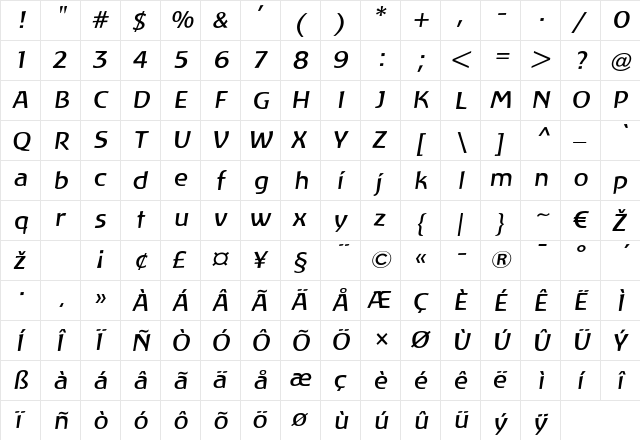
LTAtlantis Italic Regular
| Designer | Lutz Baar |
Design Context for LTAtlantis Italic Typeface
LTAtlantis Italic takes a measured approach to typography — its balanced proportions and neutral character make it a reliable workhorse for both digital and print work. Its italic angle brings a sense of urgency and motion to the letterforms.